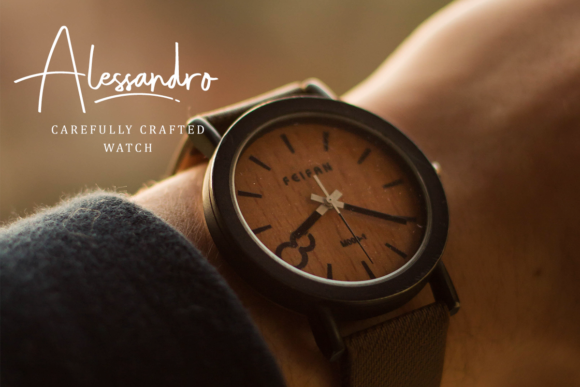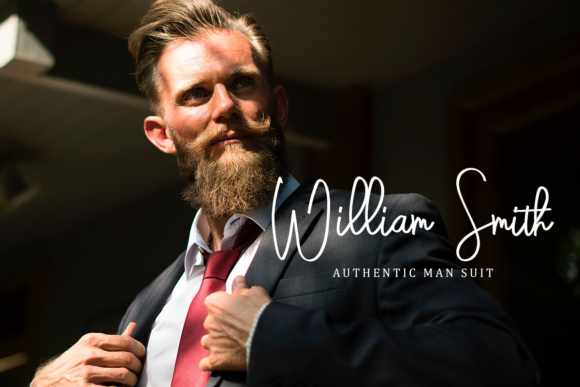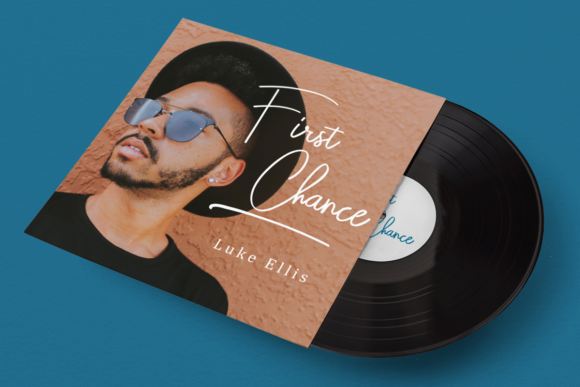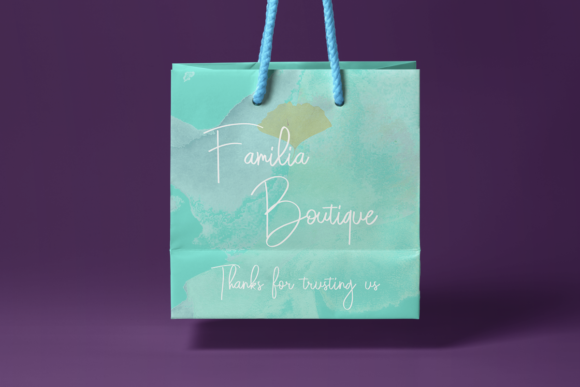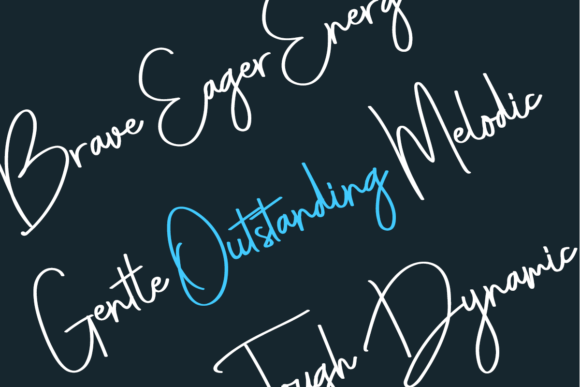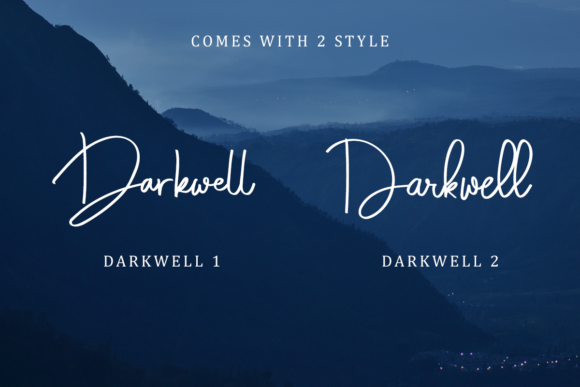
Introduction to Darkwell Family Font
Have you ever stared at a blank canvas, struggling to find the perfect font to bring your creative project to life? The frustration is real, but fear not, designers! Today, we’re excited to introduce you to the stunning Darkwell Family Font, a game-changing design resource that’s sure to elevate your work to the next level.
With its striking signature style, the Darkwell Family Font is perfect for adding a stylish touch to your background images or creating a consistent brand identity. This high-quality font family includes two fonts in three weights – regular, bold, and italic – offering endless possibilities for creative expression.
Key Features of Darkwell Family Font
- High-quality design resource ideal for creative projects, offering a unique and stylish aesthetic.
- Includes a range of font styles and weights, making it a versatile design resource for various applications.
- Unique characteristics include a mix of modern and vintage elements, making it suitable for a wide range of design applications.
Honest Review: Darkwell Family Font
I recently stumbled upon the Darkwell Family Font and was excited to give it a try in my latest creative project. As a designer, I’m always on the lookout for high-quality design resources that can elevate my work.
The Darkwell Family Font is a beautiful, handcrafted font that’s perfect for those looking for a unique and elegant look. Here are some things that work well: ✨
- High-quality design: The font is well-crafted and has a smooth, professional look.
However, there are a few limitations: ⚠️
- Limited language support: The font only supports a limited range of languages, which may be a concern for designers working with non-English content.
- No bold or italic variants: While the font is beautiful, it would be great to have bold or italic variants for added emphasis.
Overall, I’m impressed with the Darkwell Family Font. While it may have some limitations, its unique design and high-quality look make it a great addition to any designer’s toolkit.
The Darkwell Family Font is a high-quality design resource that offers a unique and creative way to enhance your projects. With its sleek and modern aesthetic, this font is perfect for designers looking for a versatile design element.
Use the Darkwell Family Font with a transparent background to create a modern and sleek design. Experiment with different font sizes and styles to create visual interest. Use the font in combination with other design elements to create a cohesive and professional look.
The Darkwell Family Font is perfect for a variety of creative projects, including:
- Website headers and footers